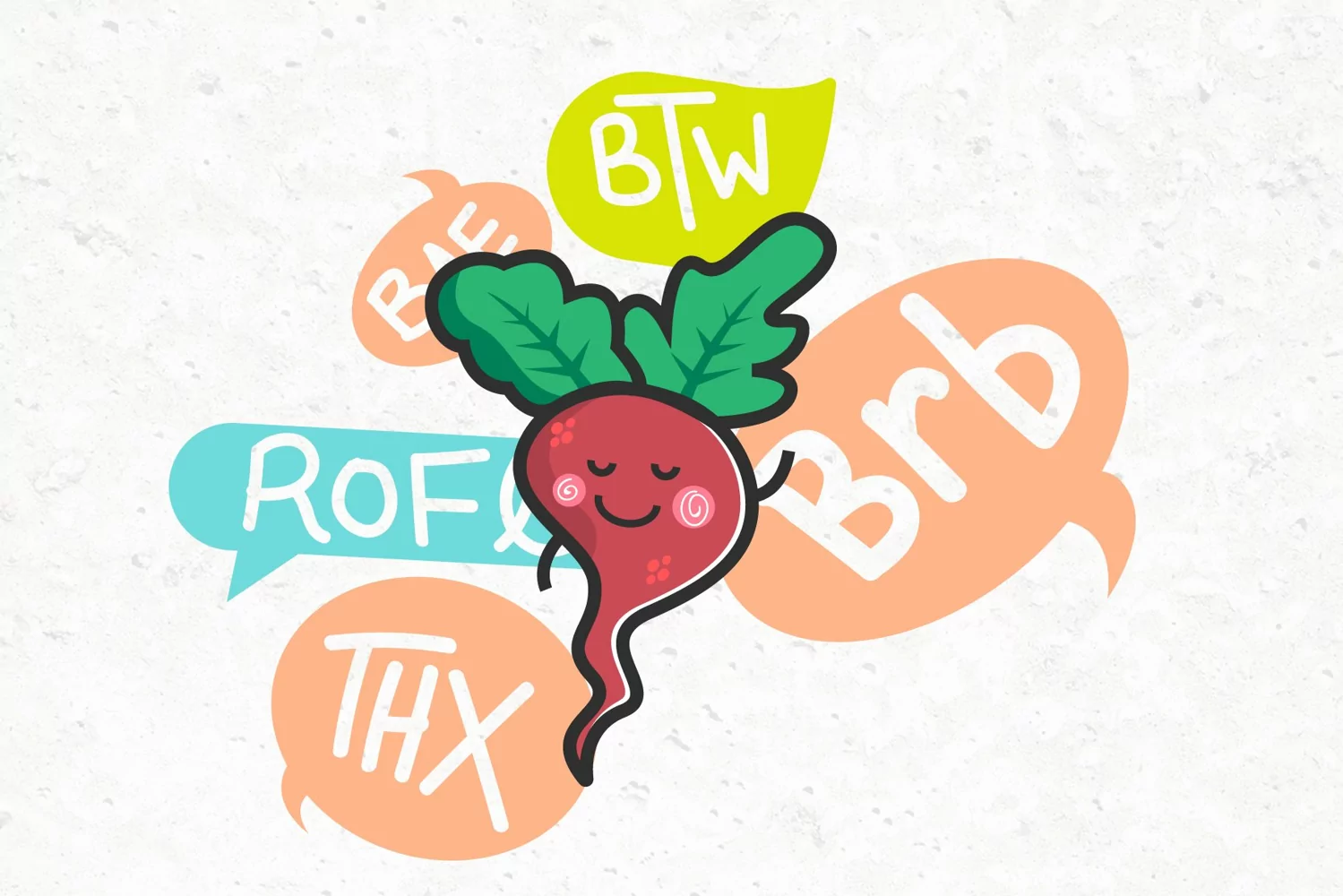
Presenting CUTE Social Networking quick chat short form which is now in font version. You can use this for thousands of purpose. Contains 26 High quality non caps version most widely used quick terms in different social networks.
1- 26 Acronyms